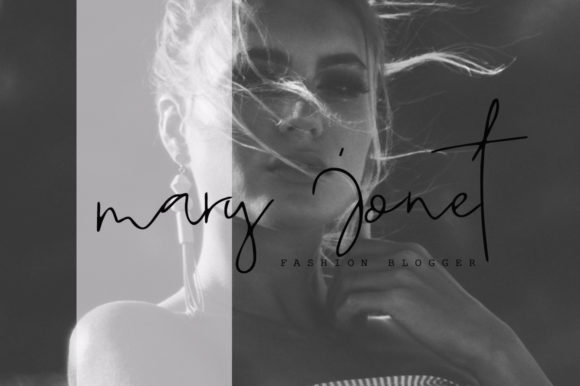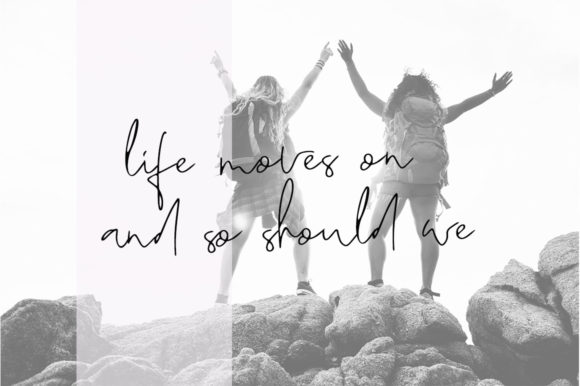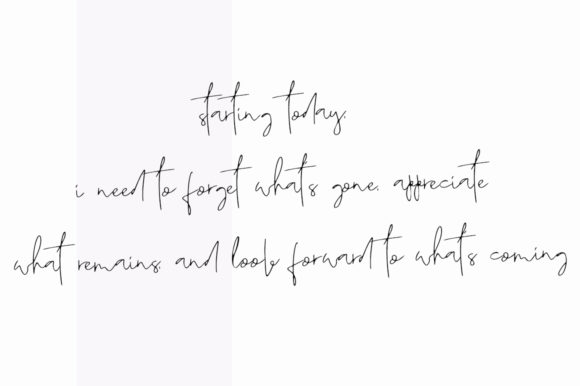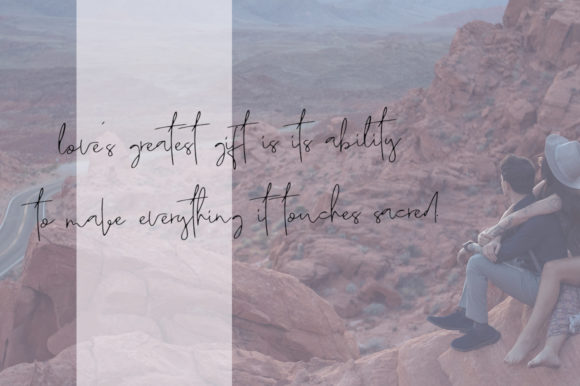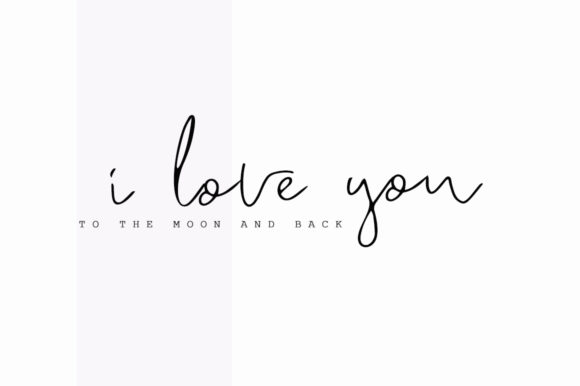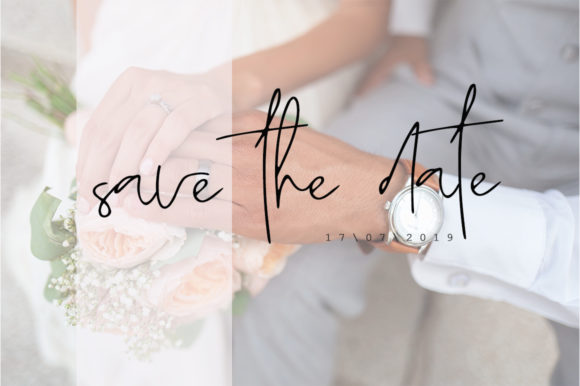
Discover the Magic of Handwritten Typography
As a designer, there’s nothing quite like the thrill of bringing a new project to life. You’ve poured over inspiration boards, brainstormed ideas, and finally, it’s time to add the finishing touches. But, you know what’s missing? A font that truly captures the essence of your vision. That’s where the Fengardom Font comes in – a beautiful, modern handwritten font designed to elevate your designs and leave a lasting impression.
With its carefully crafted letters, the Fengardom Font is the perfect addition to any project. Whether you’re working on a logo, photography, or even a wedding invitation, this font will add a touch of sophistication and elegance. As a designer, you know how valuable it is to have a versatile font that can adapt to any style or theme. The Fengardom Font is a game-changer, and we can’t wait to share its secrets with you.
Fengardom Font Key Features
- Font Family: Fengardom Font is a unique, hand-drawn script font that offers a beautiful, elegant look.
- Size: The font family includes multiple weights, ranging from Thin (100) to Extra Bold (900), providing flexibility for various design needs.
- Resolution: Optimized for high-resolution displays, making it suitable for digital applications and print materials.
- Unique Characteristics: Fengardom Font features a unique blend of traditional and modern elements, with intricate details and subtle flair, perfect for adding a touch of sophistication to any design.
- Character Set: Includes a wide range of characters, including Latin, Greek, and Cyrillic alphabets, as well as punctuation and symbols.
Fengardom Font Review
Overall, I think Fengardom is a great addition to any design library. ✨ Here are some things that work well:
- Unique aesthetic: Fengardom has a distinctive, otherworldly feel that can add a lot of character to a design.
- Wide range of styles: The font includes multiple weights and styles, making it versatile for various design applications.
- Legibility: Fengardom is surprisingly readable, even in smaller font sizes, which is essential for effective communication.
- May not be suitable for body text: Due to its unique aesthetic, Fengardom might not be the best choice for large blocks of text, as it can be overwhelming.
- Lack of international support: Fengardom may not include all the necessary language support, which could be a concern for global designs.
- Not ideal for low-resolution displays: Fengardom’s intricate details might become blurry or pixelated on low-resolution screens.
Overall, I think Fengardom is a great font for adding a touch of elegance and whimsy to a design. While it may have some limitations, its unique aesthetic and wide range of styles make it a valuable addition to any design library. ⚠️ Just be mindful of its potential limitations when choosing a font for your project.
Getting the Most Out of Fengardom Font
To get the most out of Fengardom Font, consider the following tips:
Use the font in combination with other design elements to create a visually appealing and cohesive look.
Experiment with different font sizes and colors to find the perfect balance.
Use the font in a variety of contexts, such as headings, subheadings, and body text, to add visual interest and hierarchy.
Fengardom Font is commonly used in:
Designing logos and branding materials.
Creating posters and